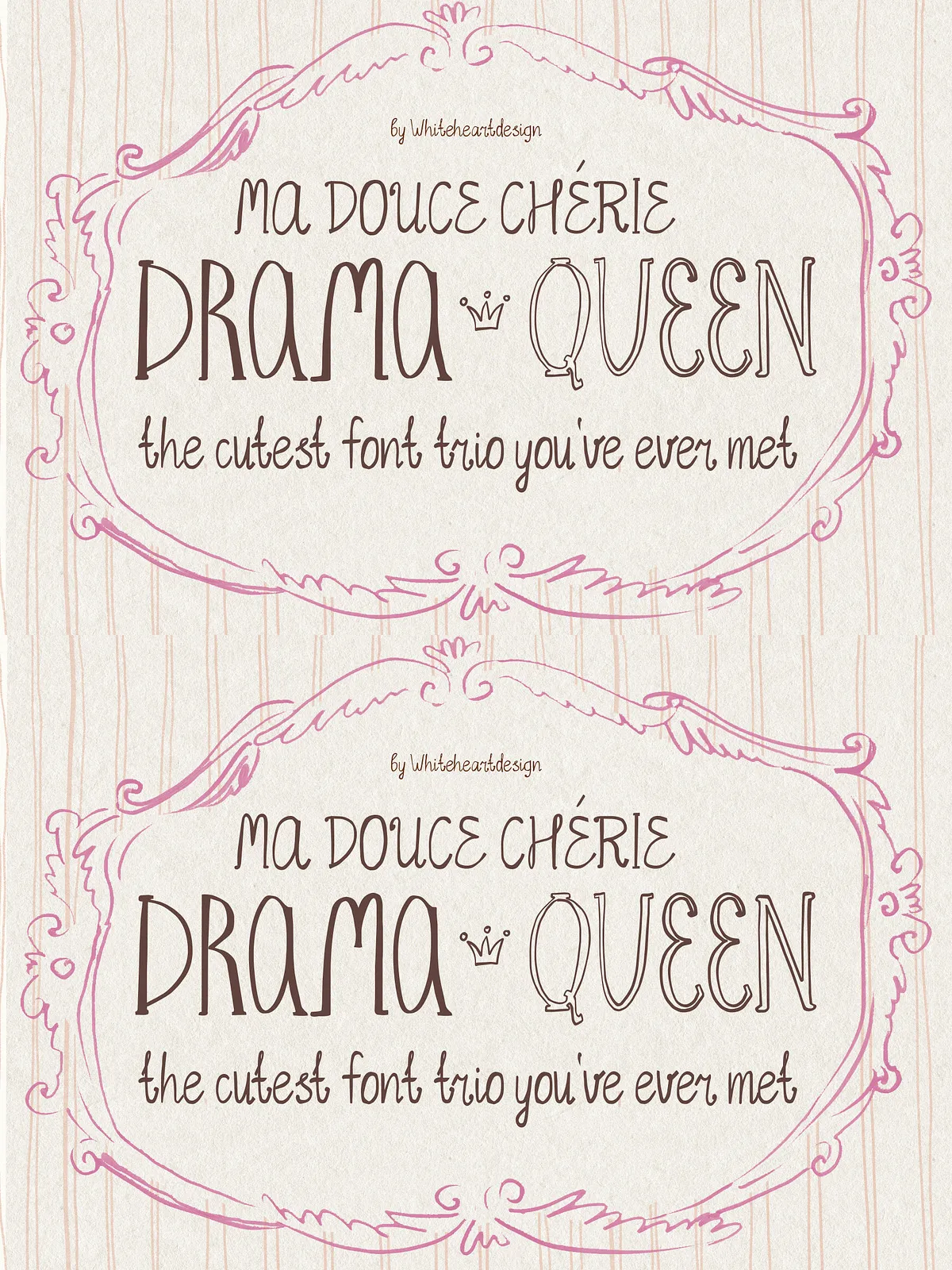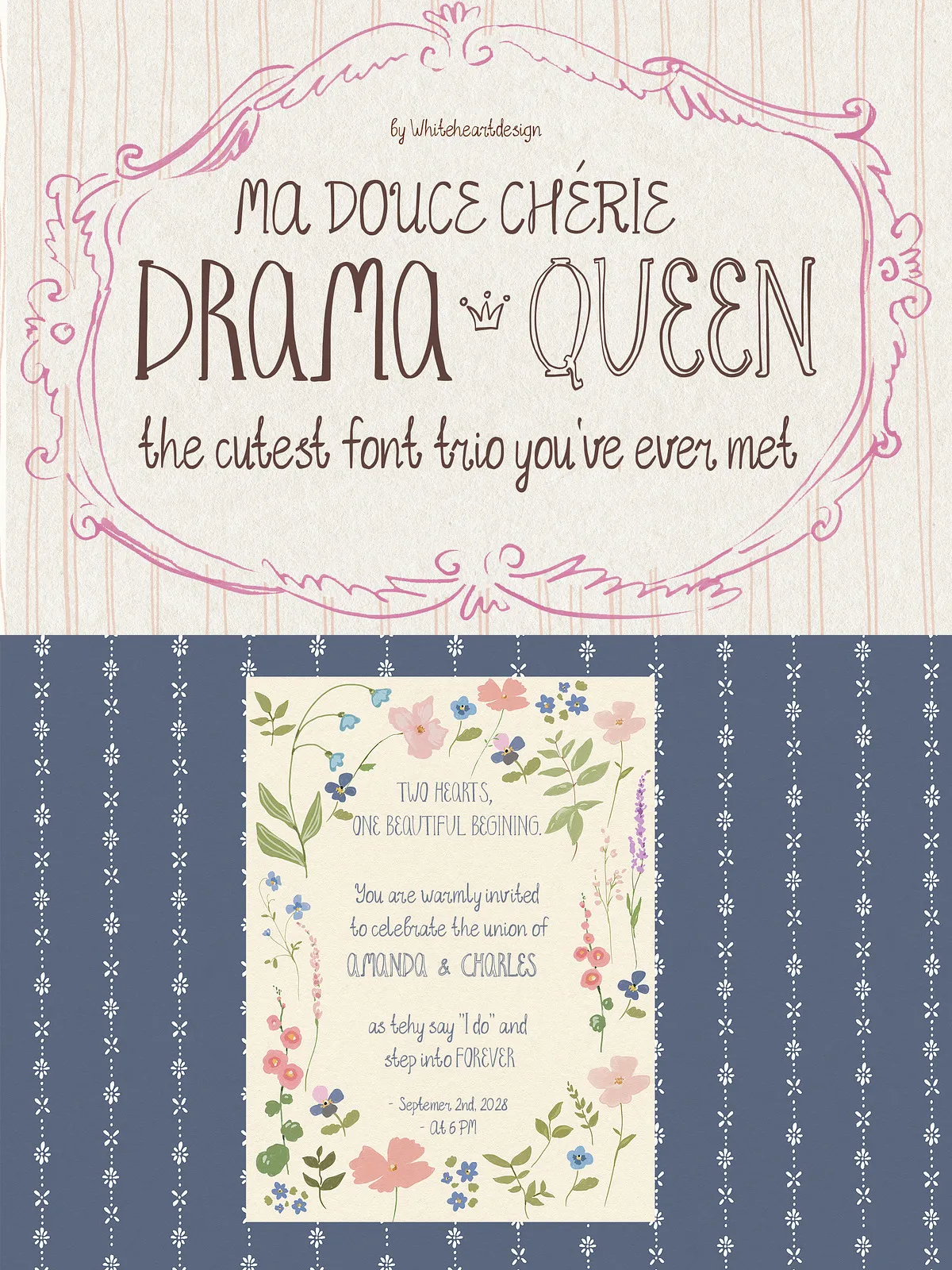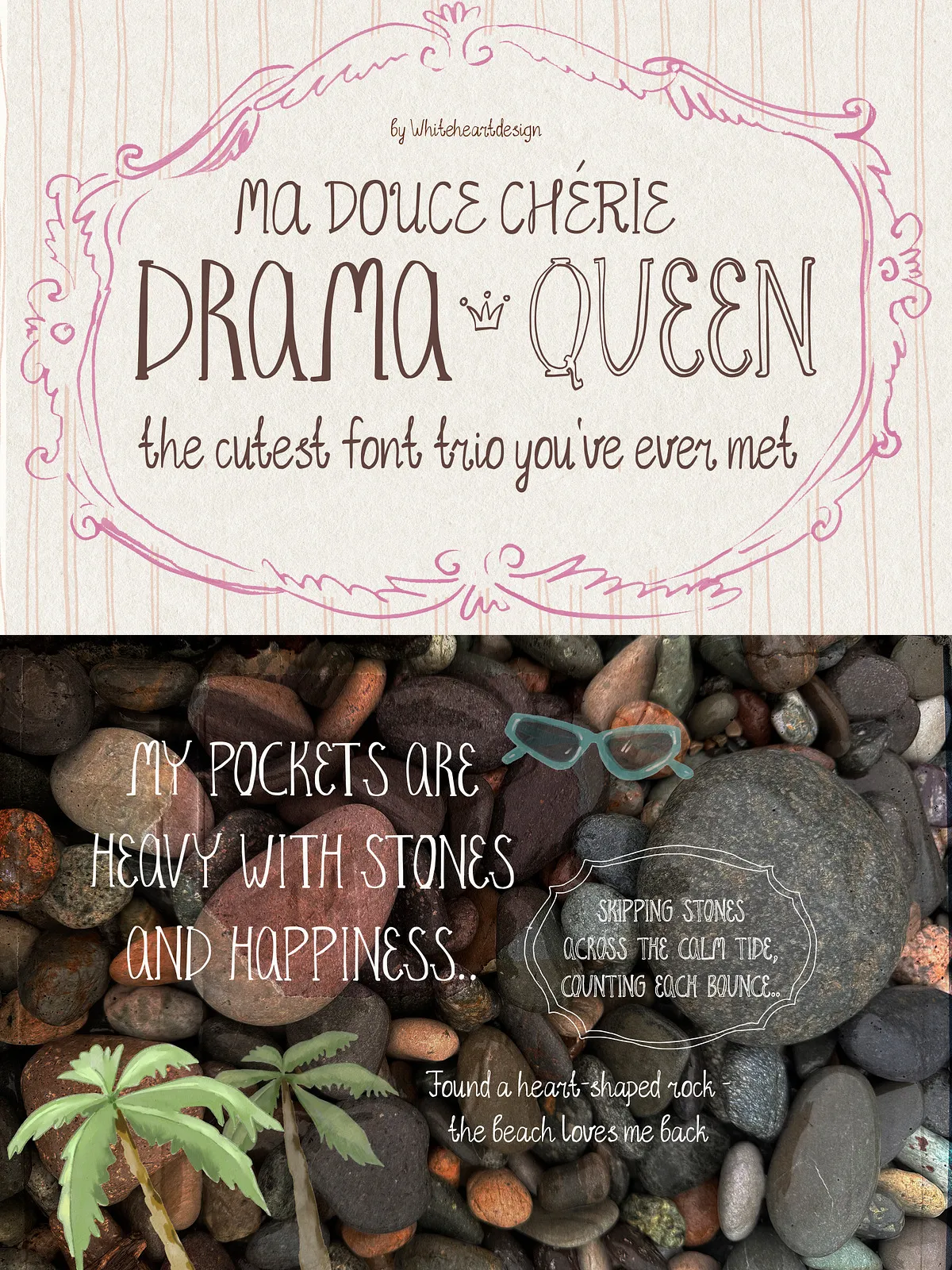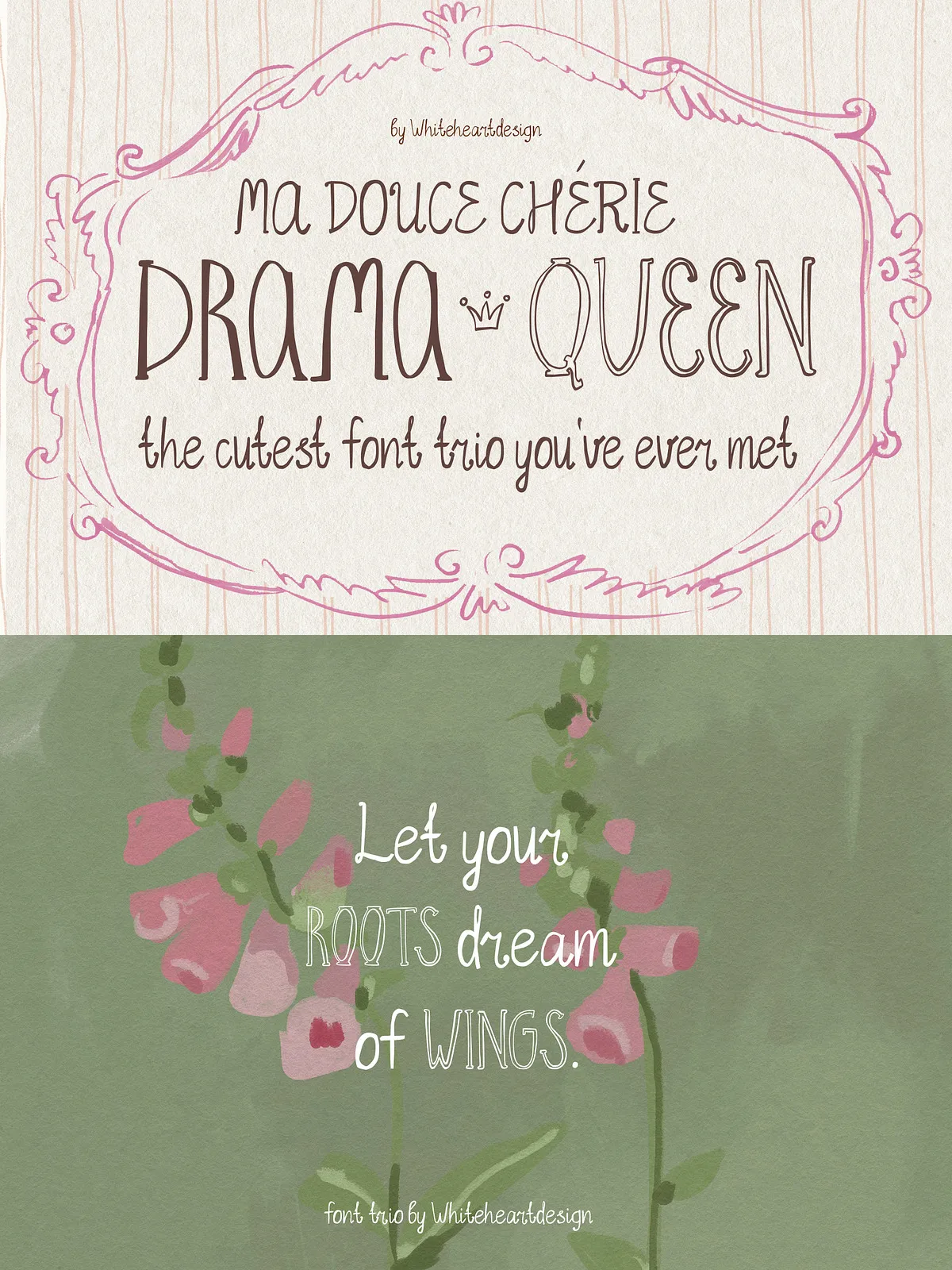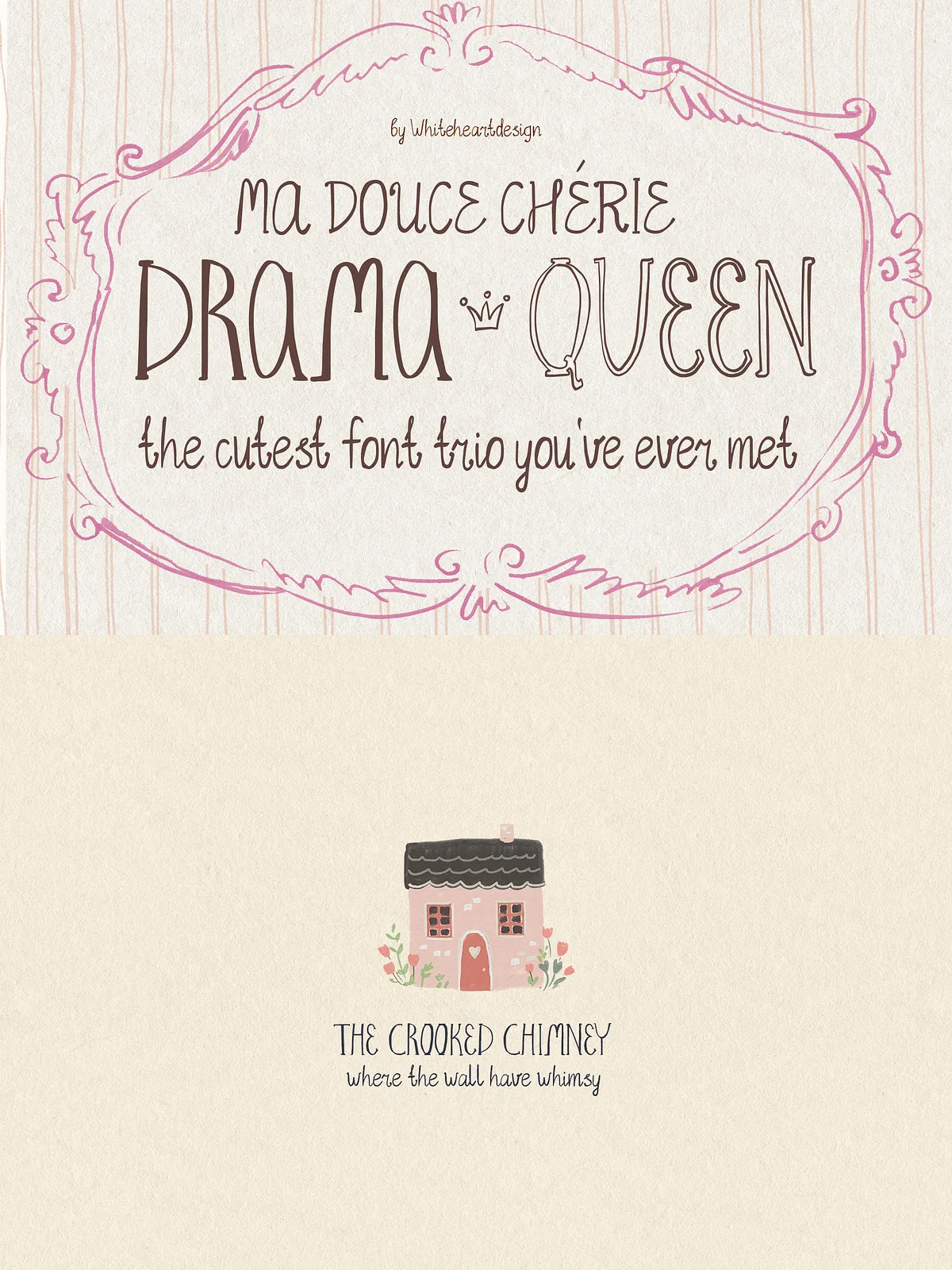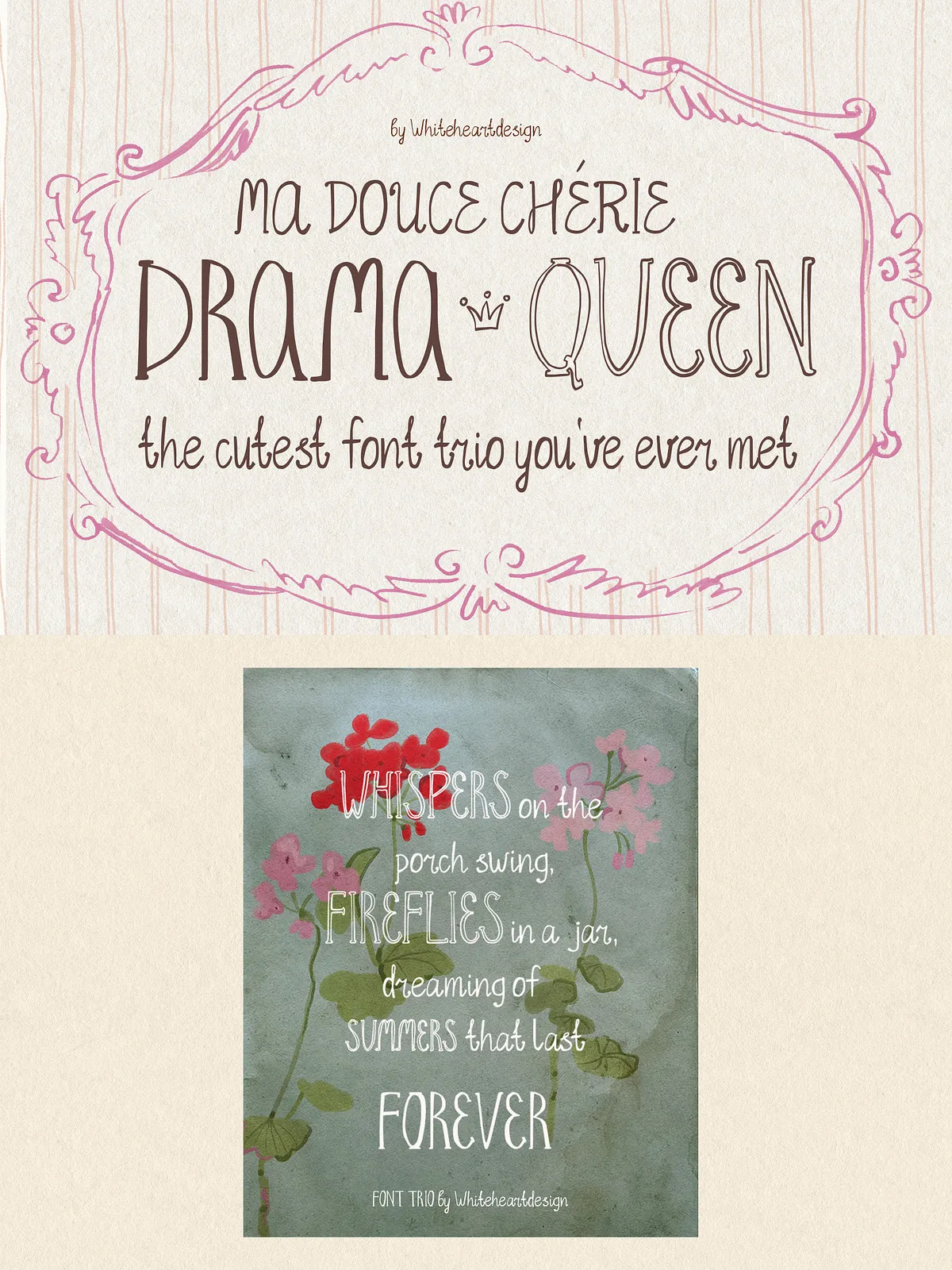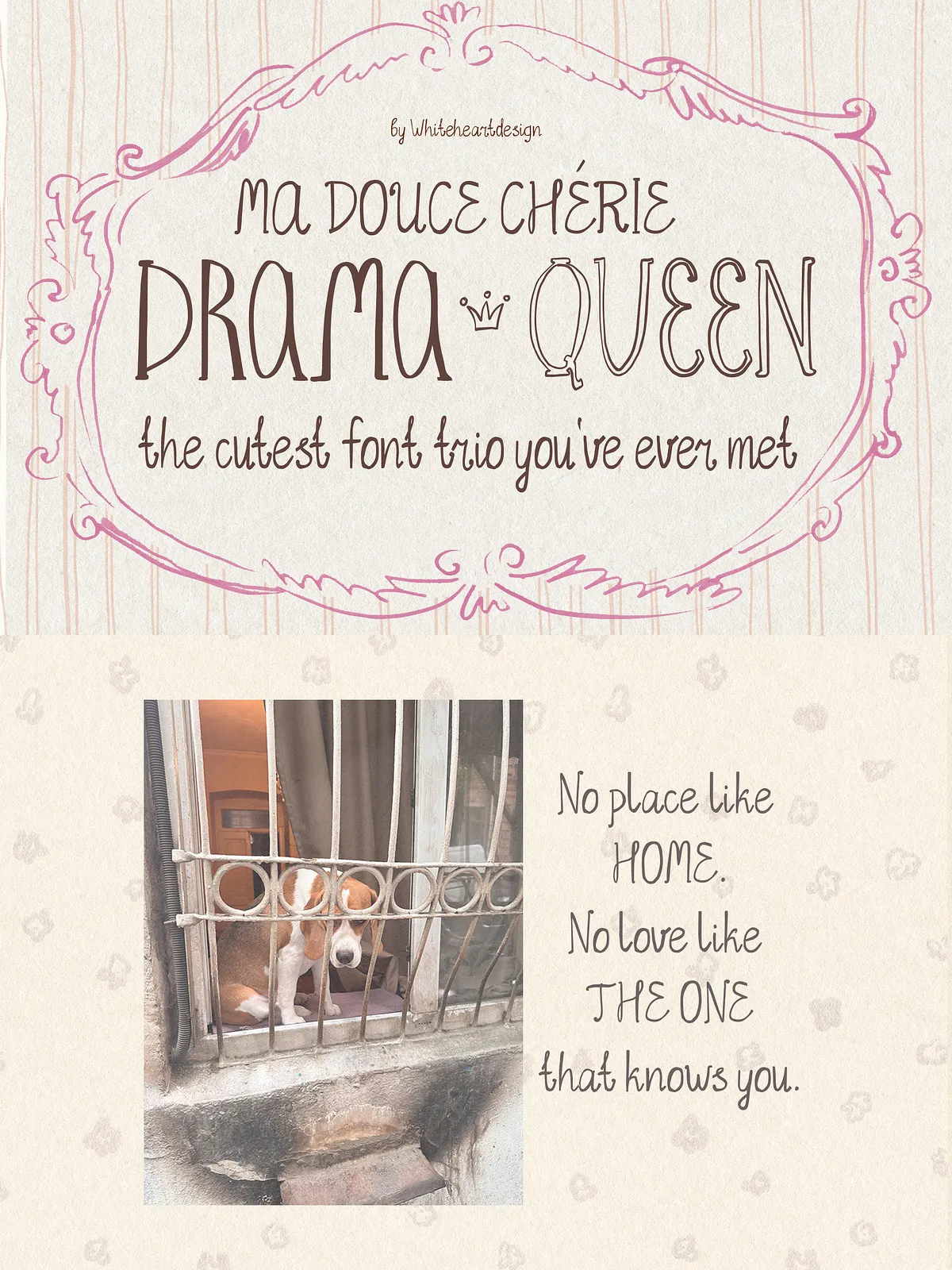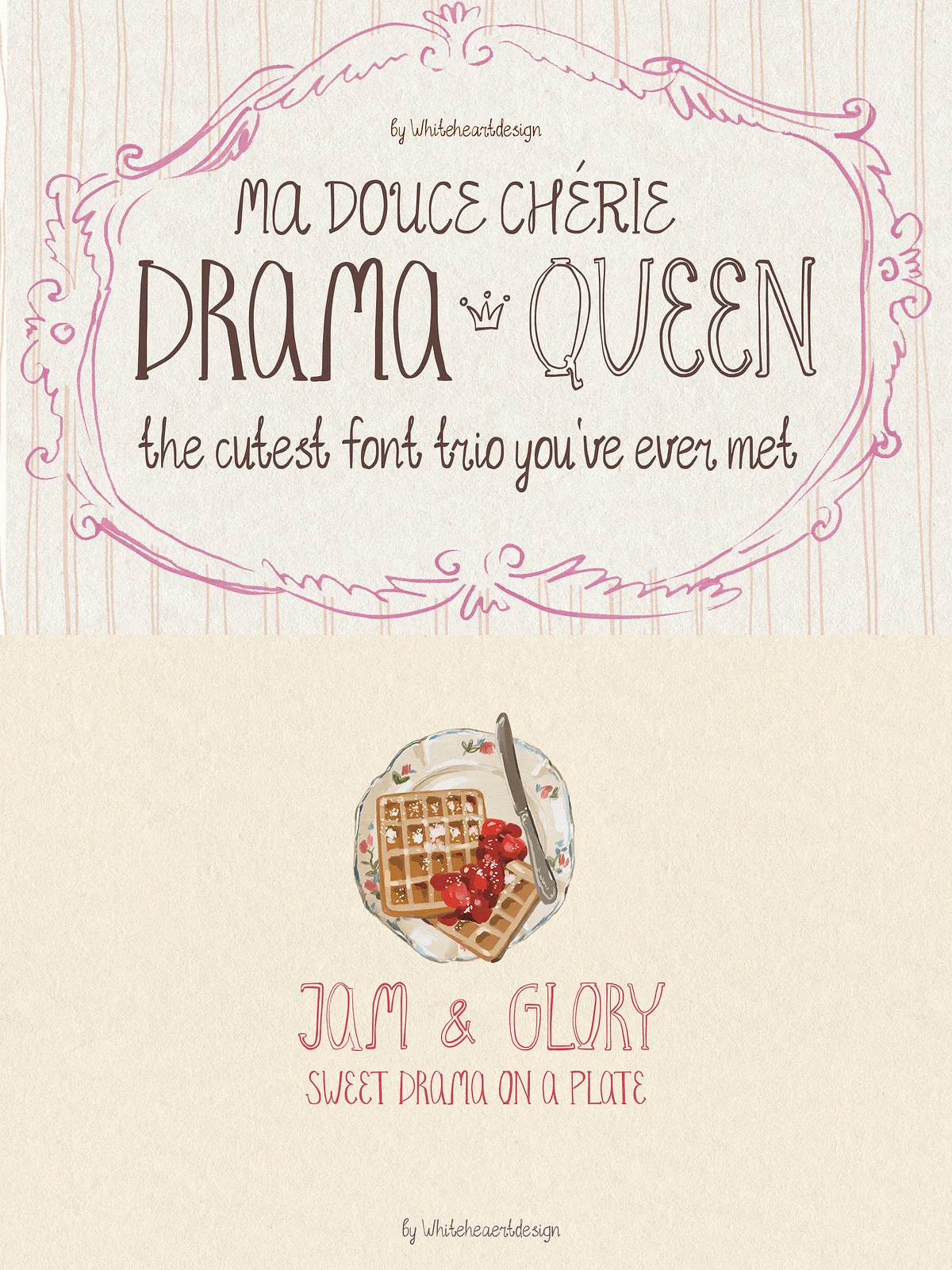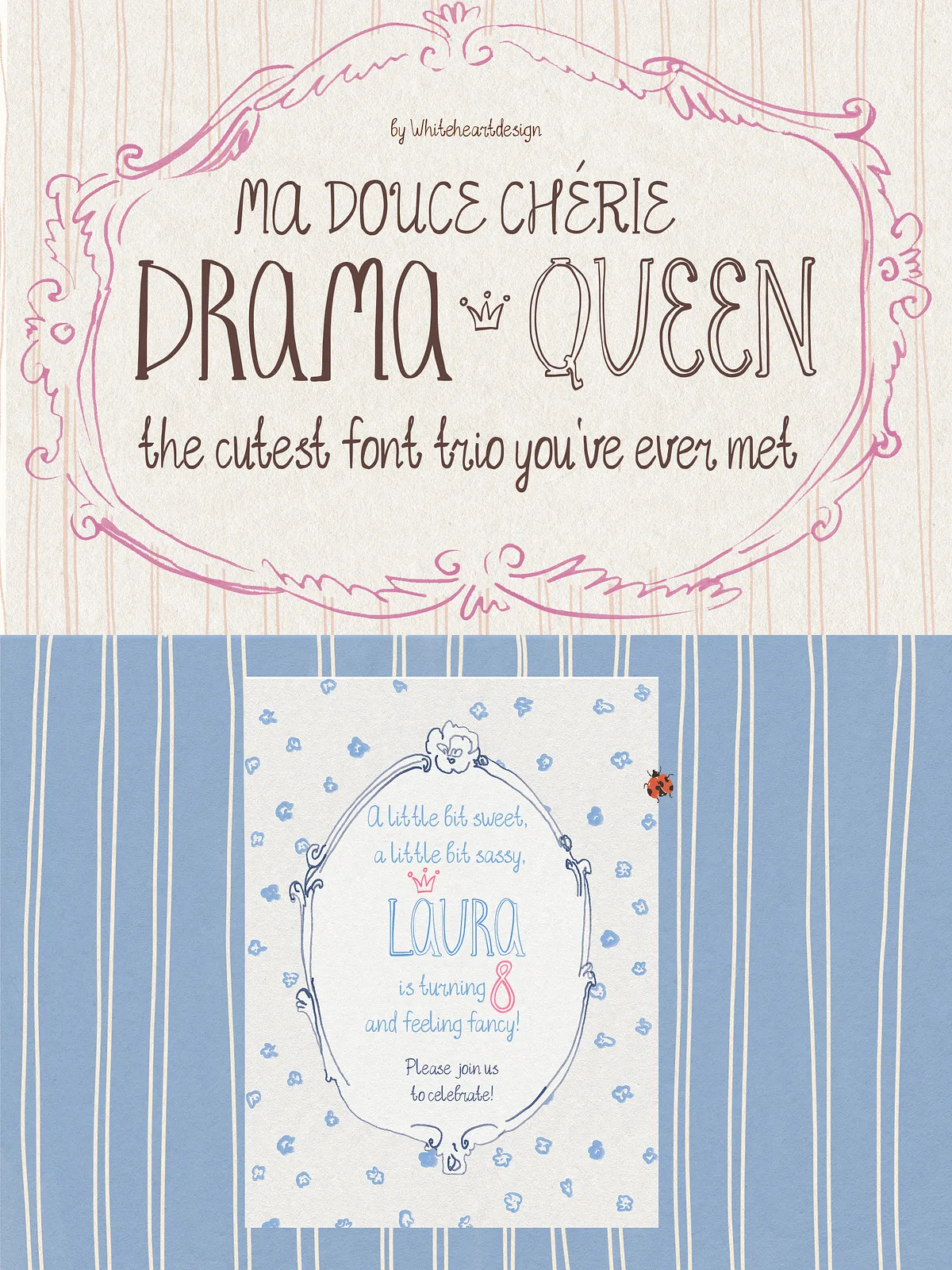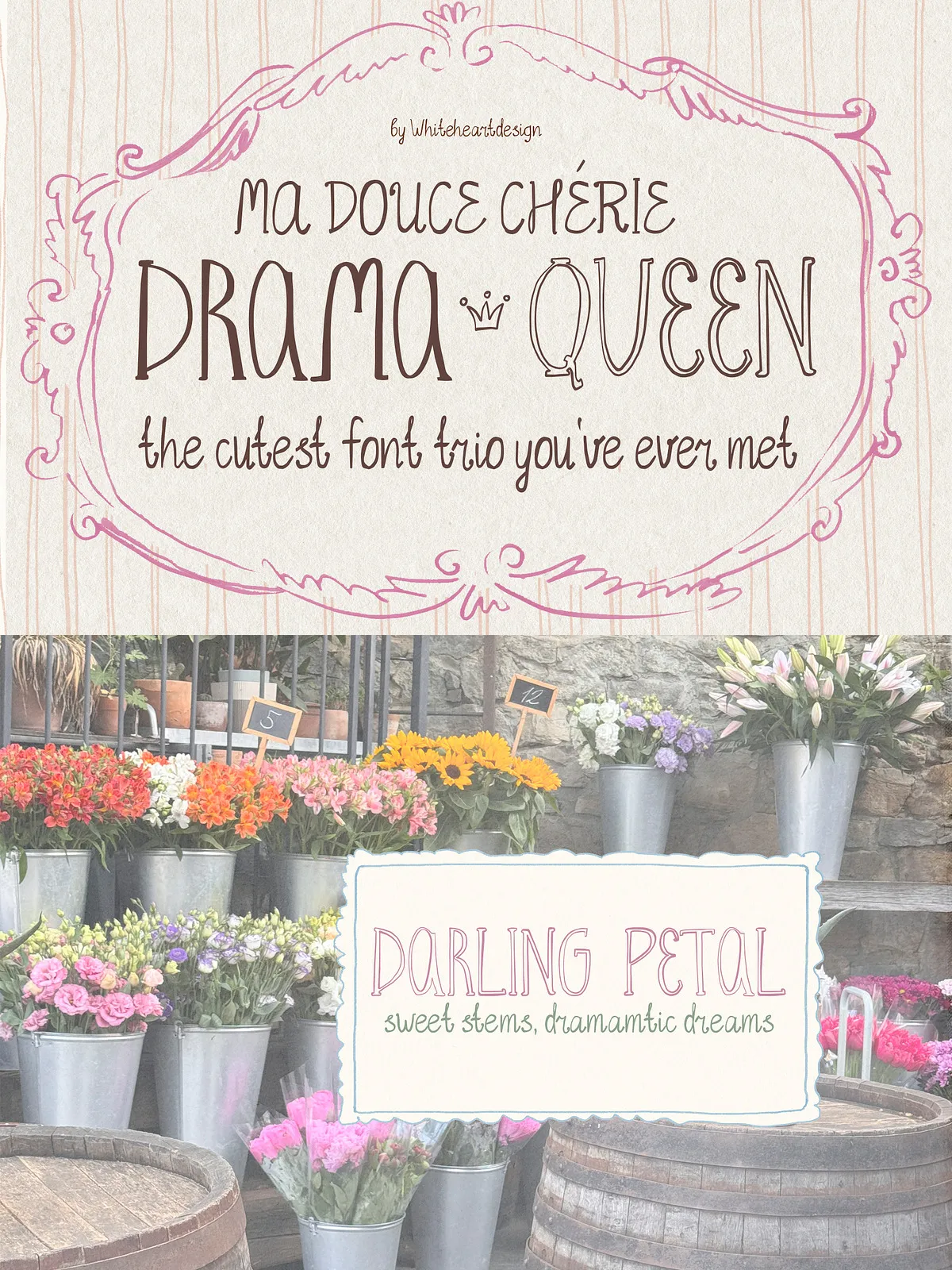
Hand Written Font Trio Serif Script
All three fonts share the same imperfect, hand-drawn aesthetic—no two letters are exactly alike, and that’s exactly the point. They’re designed to work beautifully together, offering endless possibilities for mixing, matching, and layering.
Perfect for:
· Wedding invitations, save-the-dates, and thank-you cards
· Branding for small businesses, boutiques, and artisan makers
· Wall art quotes and inspirational prints
· Social media graphics and Instagram posts
· Product packaging and labels for handmade goods
· Greeting cards, stationery, and journaling
· Blog headers and lifestyle content
· Farmhouse-style signage and home decor
· Logo design for cafes, bakeries, and lifestyle brands
· Book covers and editorial design
· Canva templates and Cricut crafts
· Quote graphics and typographic posters
· Slow living and mindfulness content
Why you’ll love this font trio:
There’s something deeply comforting about a font that doesn’t try to be perfect. These letters are hand-drawn, slightly irregular, and full of warmth—like something you’d find in a cherished notebook or a recipe card passed down through generations. The subtle flourishes add just the right amount of sweetness and elegance, while the outline serif offers a delicate, dreamy alternative for layering and accents.
Whether you’re designing a dreamy wedding suite, crafting the perfect Instagram quote, building a brand that feels both sweet and unforgettable, or creating wall art that speaks to the heart, My Sweet Darling Drama Queen gives you the warmth, personality, and versatility you need.
It’s sweet, it’s charming, it’s a little bit dramatic—and it’s ready to bring your creative visions to life.